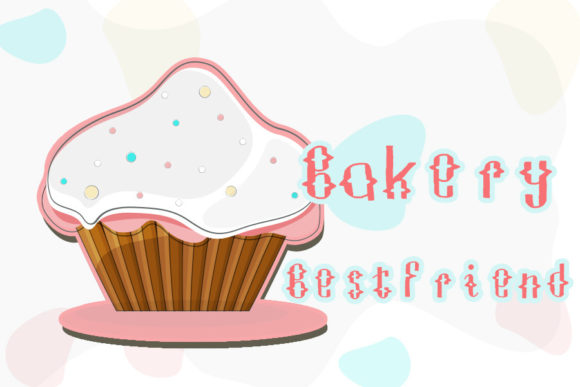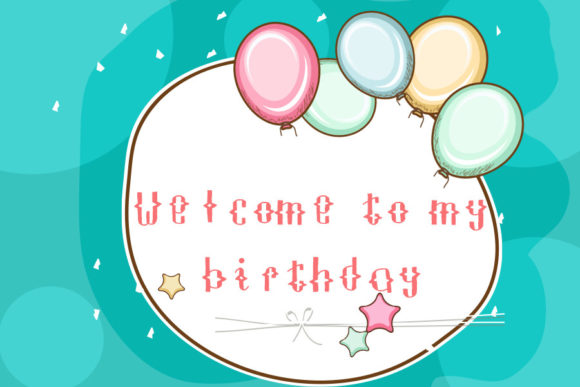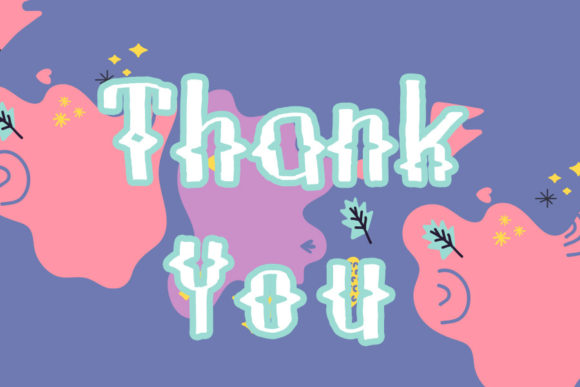
Introduction to Kaum Sambat Font
Have you ever been working on a creative project, only to find the perfect font has slipped through your fingers? You know, that elusive design element that elevates your entire project from good to great? For designers, finding the right font can be a game-changer, and today we’re excited to share with you a hidden gem that’s sure to become a go-to resource: the Kaum Sambat Font.
This fun and chunky lettered display font is more than just a pretty face – it’s a design resource that’s packed with personality and charm. With its lovely ornaments and high-quality design, Kaum Sambat Font is the perfect addition to any creative project, from letterheads and titles to stationery. And the best part? It’s available for free download, complete with a transparent background for seamless integration into your designs.
Key Features of Kaum Sambat Font
- High-quality design resource suitable for creative projects, including digital art, graphic design, and typography.
- Unique Cambodian-inspired script, providing a distinctive aesthetic for cultural or thematic projects.
- Supports a wide range of languages, including Khmer, making it a valuable resource for multilingual design projects.
- Designed to be versatile, allowing for various font styles and sizes to suit different creative needs.
Honest Review: Kaum Sambat Font
As a designer, I’m always on the lookout for high-quality design resources to elevate my creative projects. Recently, I had the chance to work with the Kaum Sambat Font, and I’m excited to share my honest review.
What works well: ✨ The Kaum Sambat Font is incredibly versatile and can be used for a variety of design projects, from logos to typography. The font’s unique blend of traditional and modern elements makes it a great choice for those looking to add a touch of cultural flair to their work.
What doesn’t work well: ⚠️ While the Kaum Sambat Font is a high-quality resource, it can be a bit challenging to work with for those who are not familiar with its unique characteristics. Additionally, the font’s transparent background can sometimes make it difficult to achieve the desired level of opacity.
- May require some practice to master the font’s unique characteristics
Overall, I’m impressed with the Kaum Sambat Font and would highly recommend it to designers looking for a unique and high-quality design resource. With a little practice and patience, this font can be a game-changer for your creative projects.
Introduction to Kaum Sambat Font
Kaum Sambat Font is a high-quality design resource ideal for creative projects. This font is available for free download with a transparent background, making it easy to integrate into your designs.
Getting the Most Out of Kaum Sambat Font
For optimal results, use the Kaum Sambat Font in combination with other high-quality design elements, such as images and graphics. Experiment with different font sizes, colors, and arrangements to create visually appealing designs.
FreeSerif Font